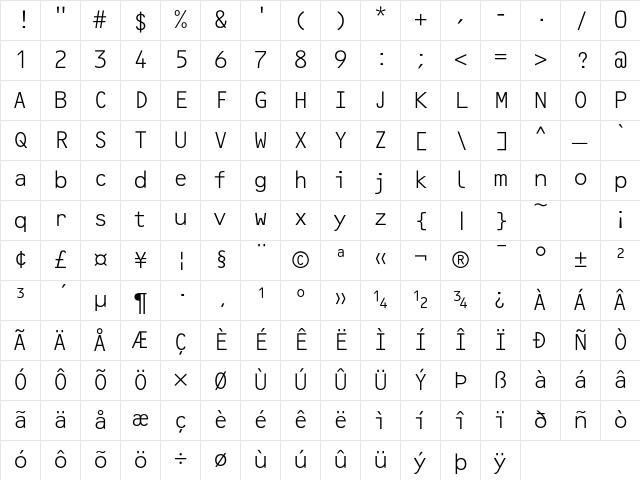
OCRF Light Free Font
OCRF Light
Design Context for OCRF
OCRF is a composed and adaptable typeface that performs quietly and consistently across a wide range of design contexts. Its slender proportions lend an understated elegance to any composition.